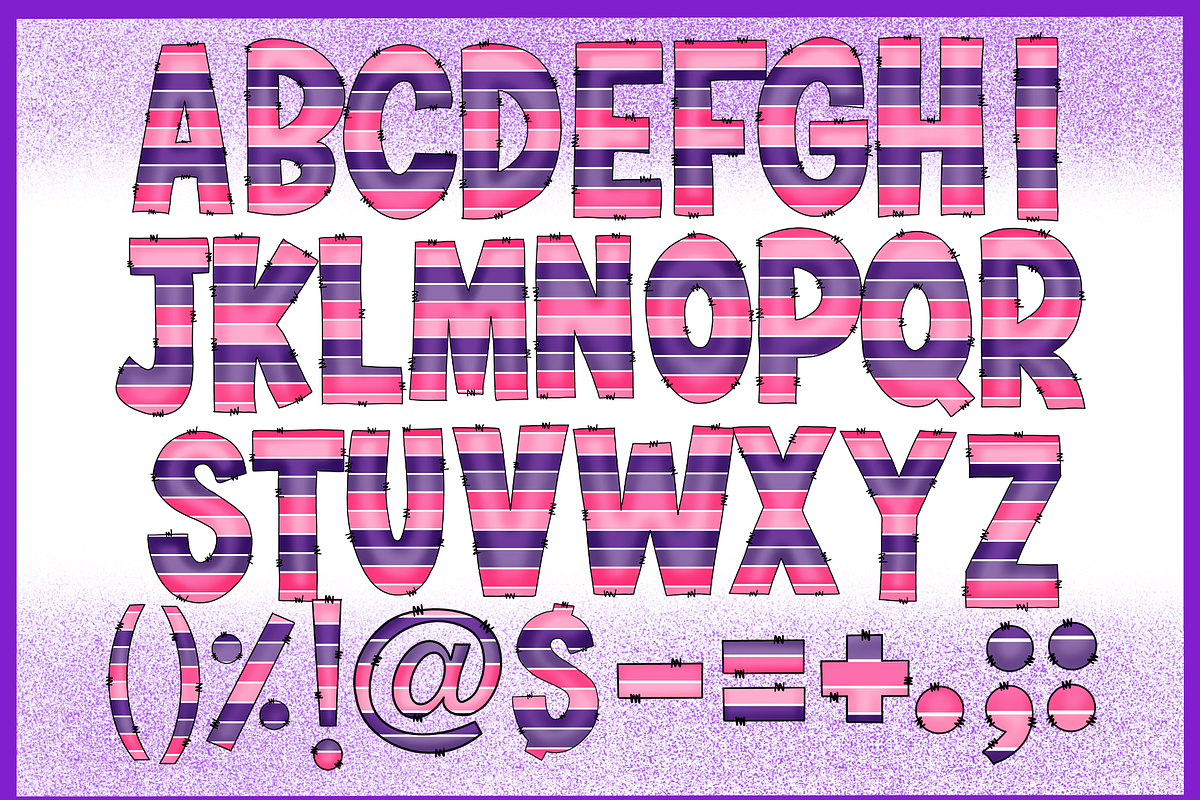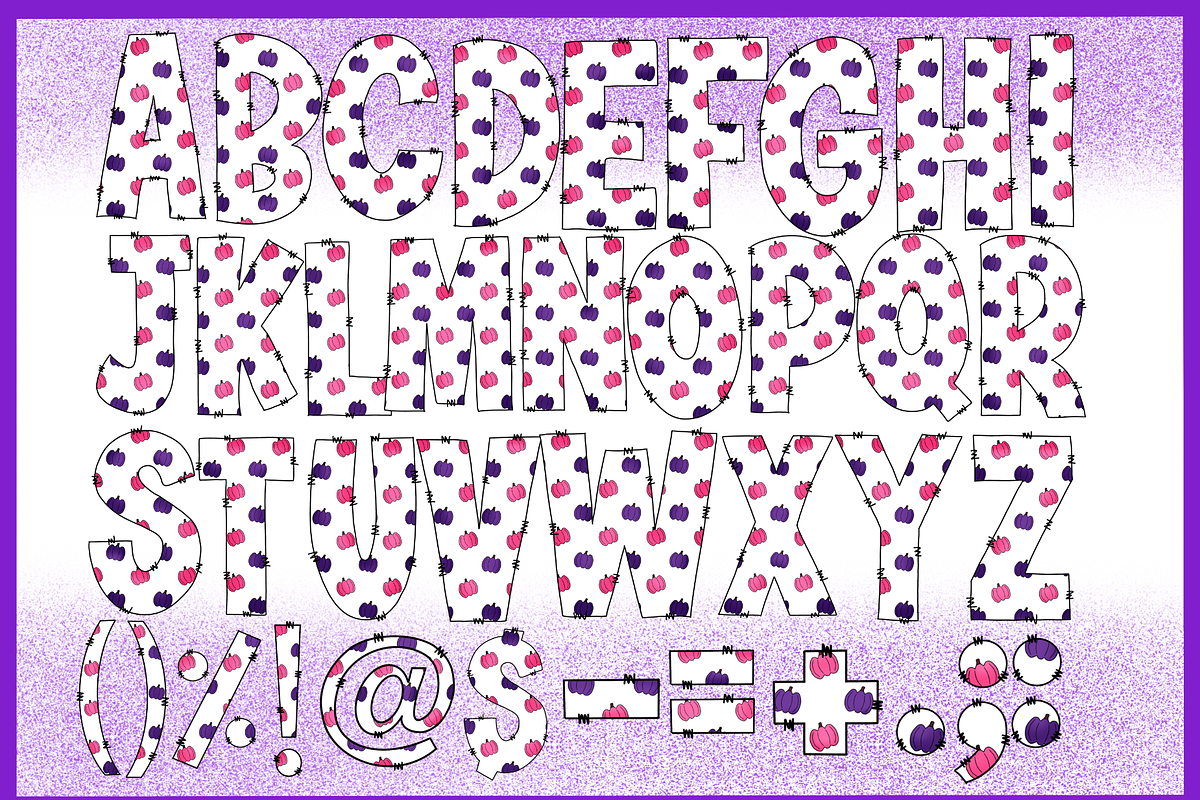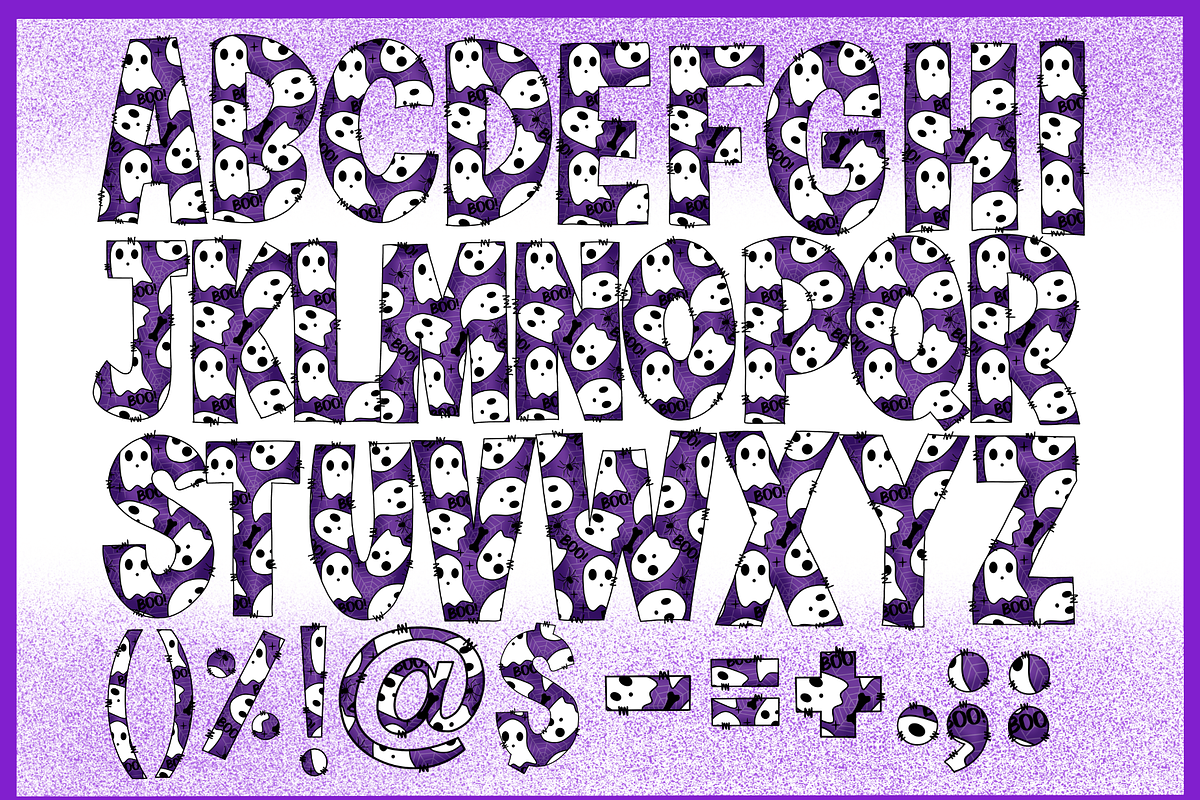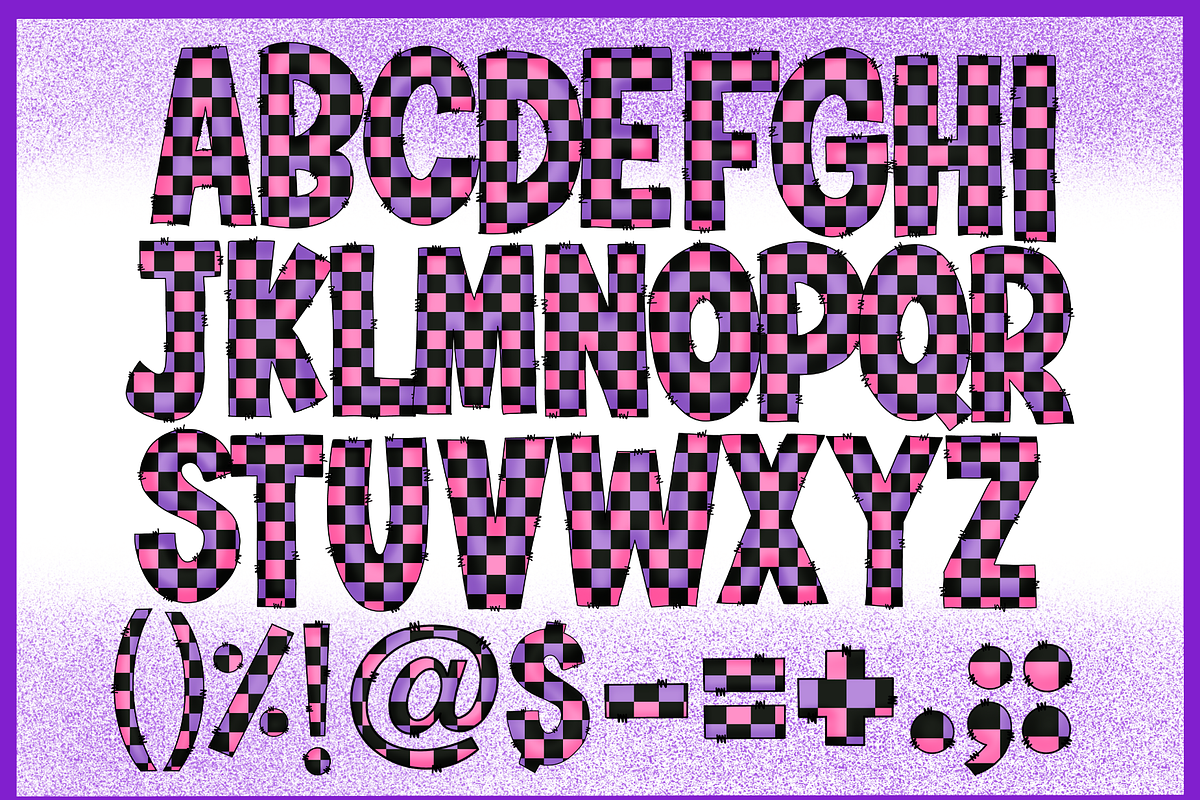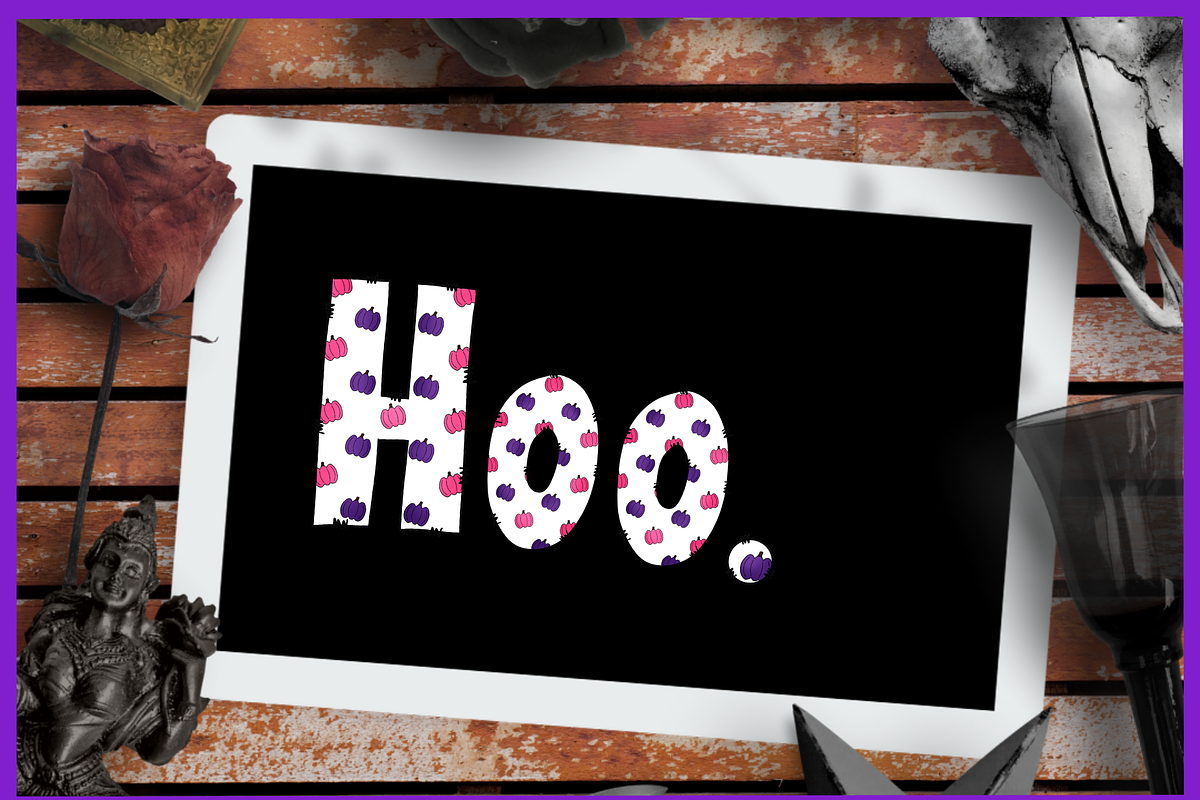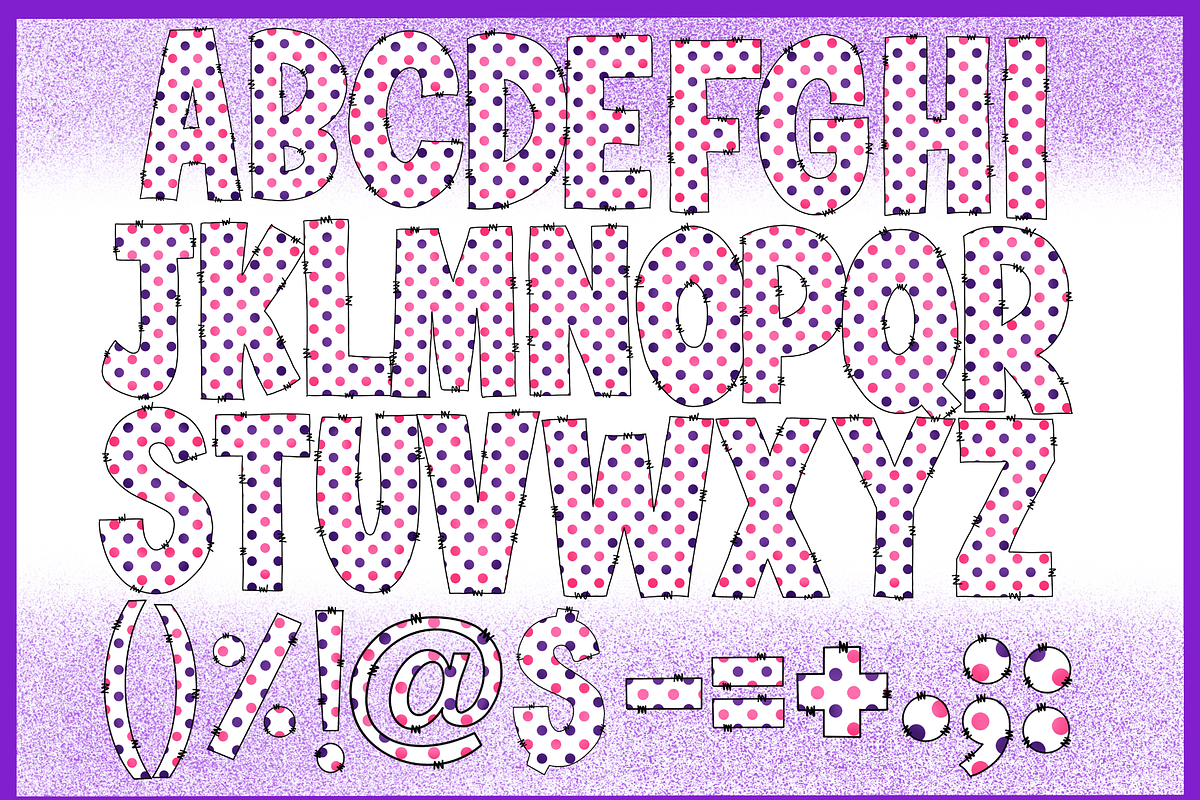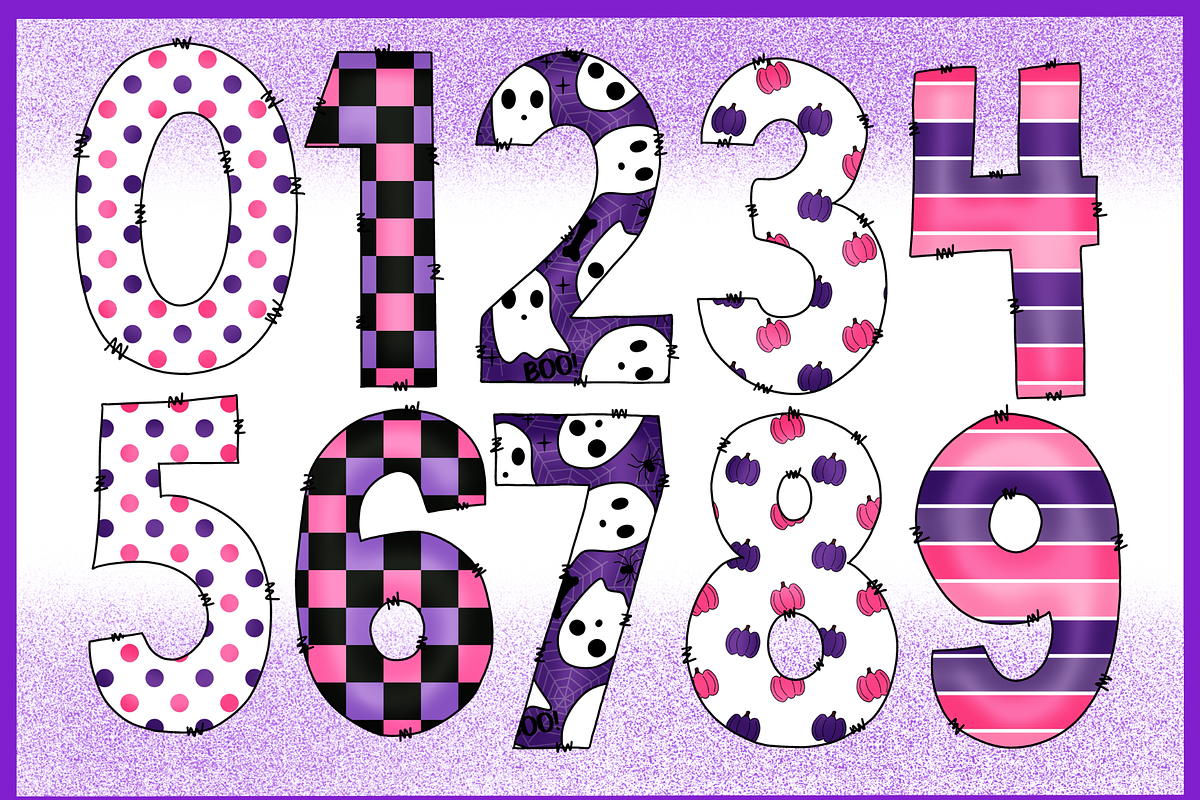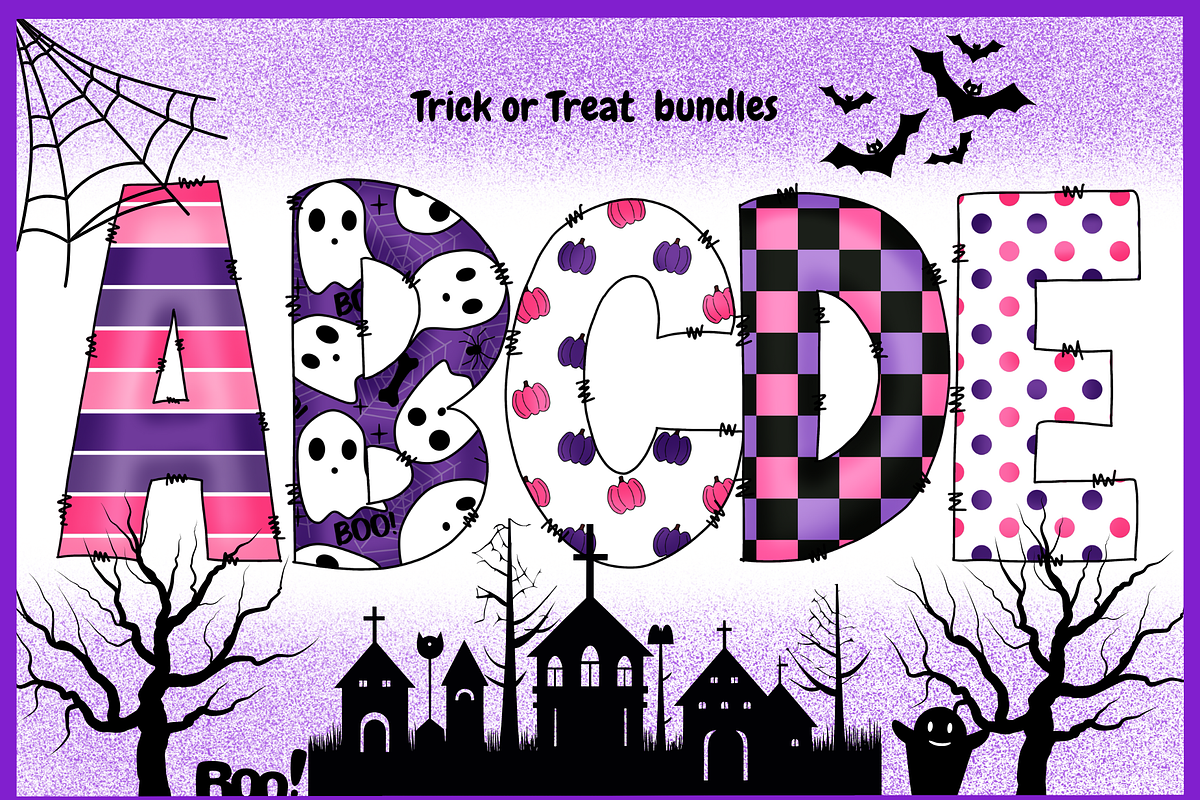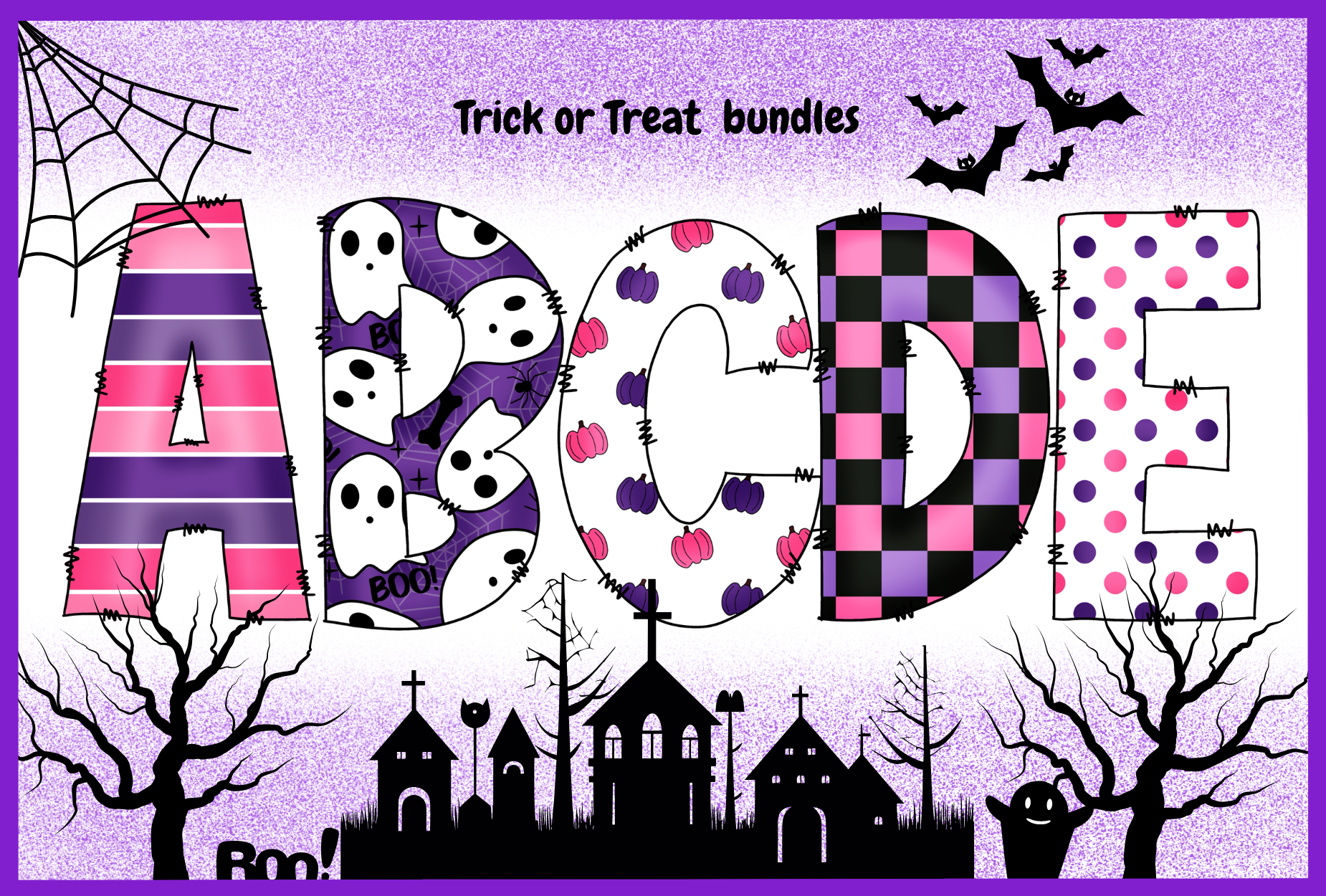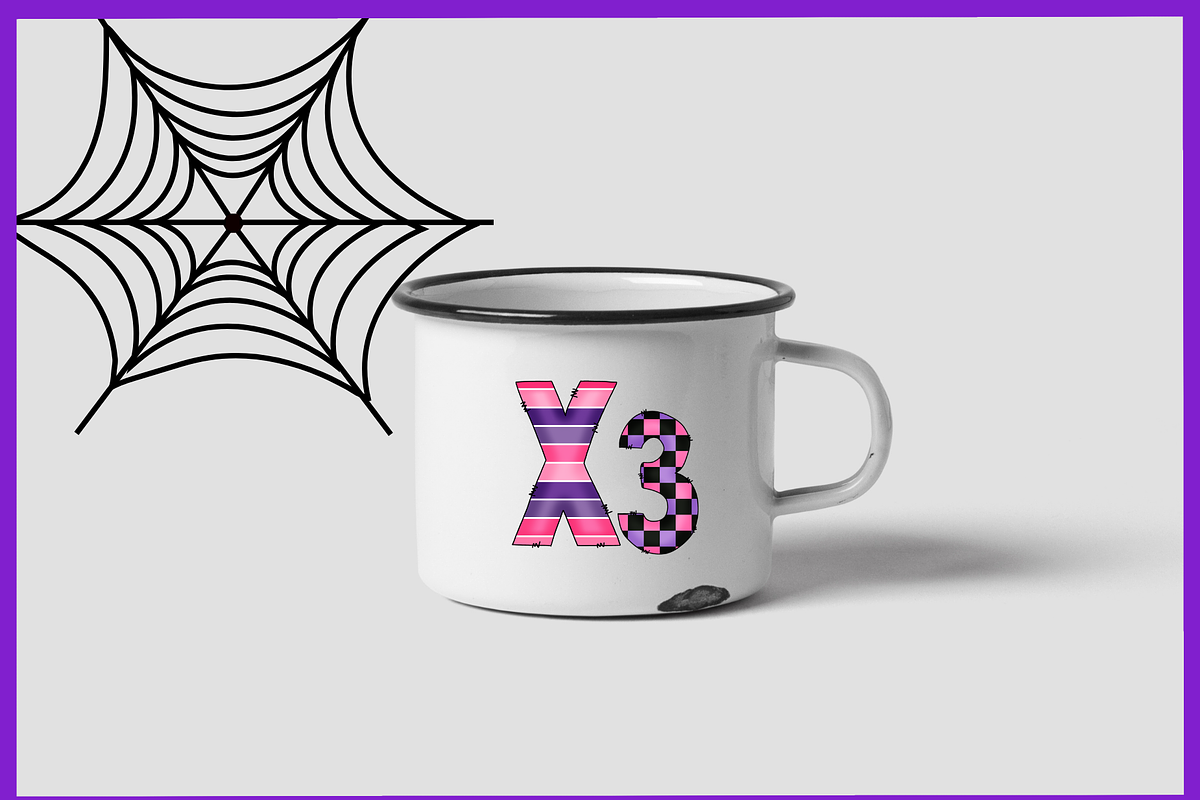
Trick or Treat-PNG fonts
Trick or Treat Font
The Trick or Treat Font Bundle is a vibrant and spooky alphabet set filled with playful Halloween patterns like ghosts, pumpkins, spiderwebs, and bold stripes. Each letter is uniquely decorated with colorful textures and stitched edges,